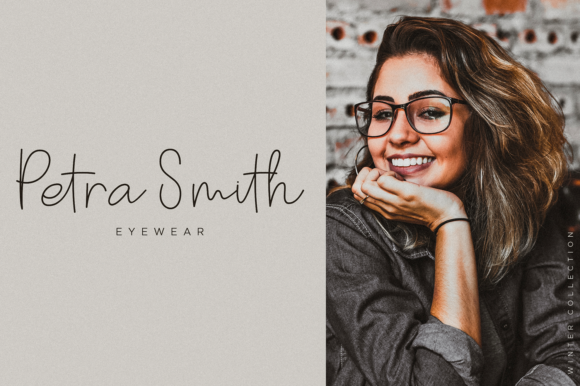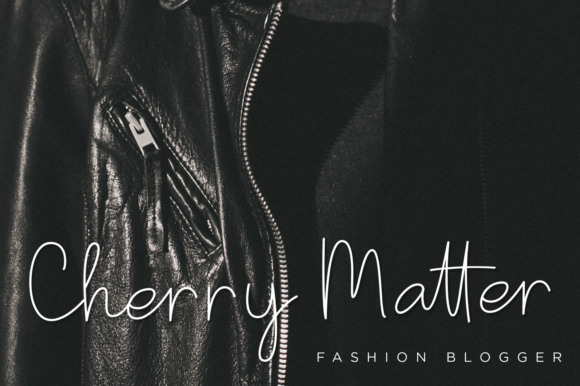
Badtaste Font
db-ku.com - Script & Handwritten -- Badtaste is a thin lettered and graceful script font. Fall for its ravishing style and use it to create gorgeous wedding invitations, beautiful stationary art, eye-catching social media posts, and much more!